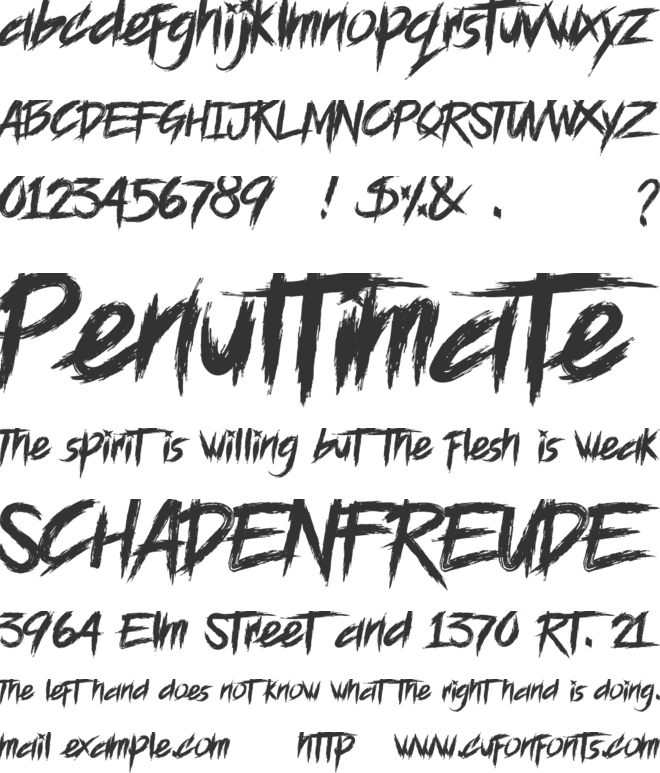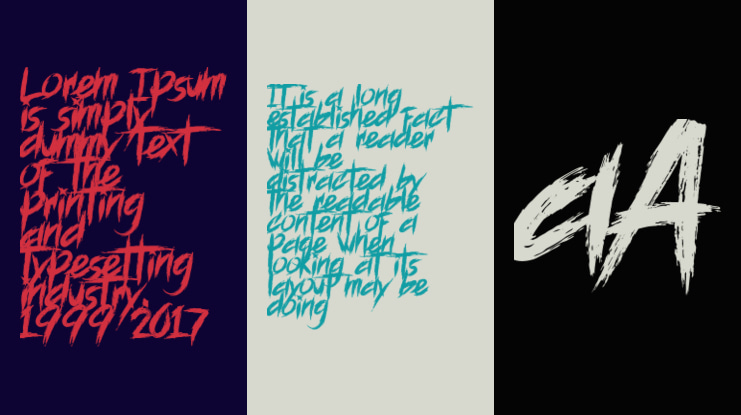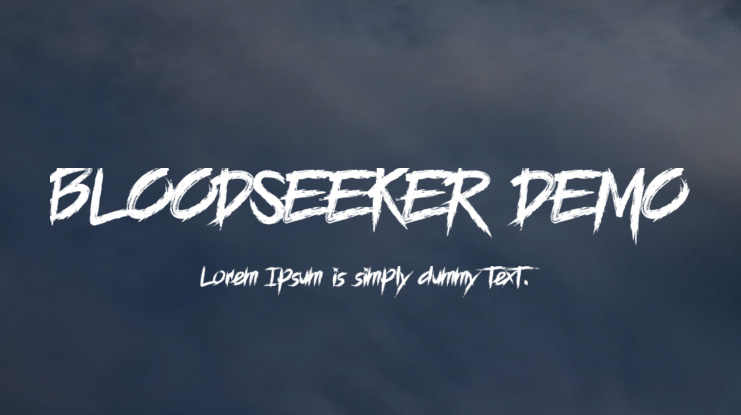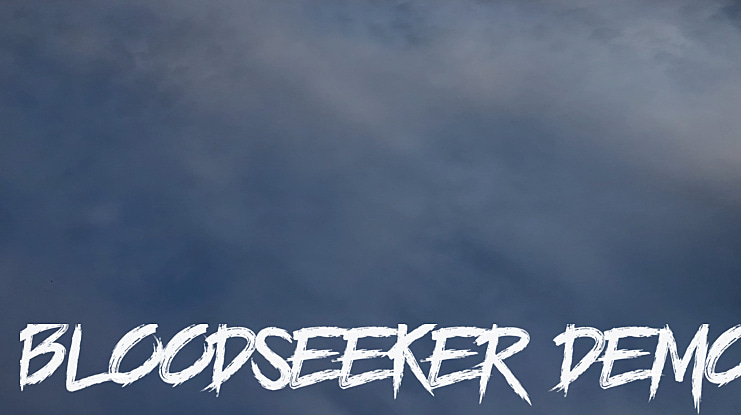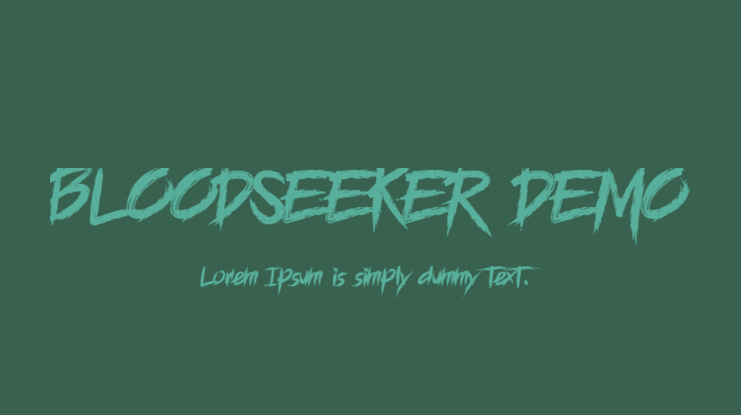
BLOODSEEKER DEMO Font
Knackpack Studio
- Introducing -
BLOOD SUCKERZ
- Horror Theme Typeface.. Demo version. Visit www.knackpack.studio for the full version..